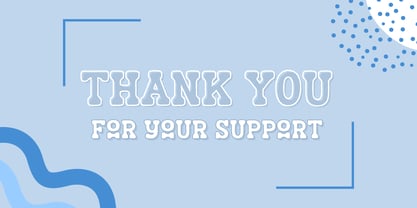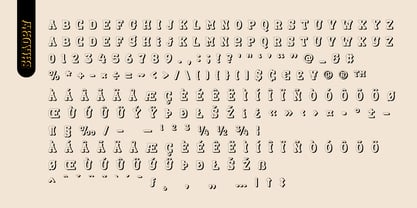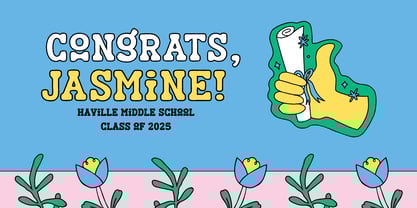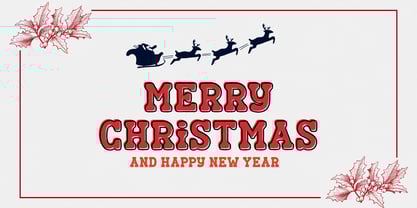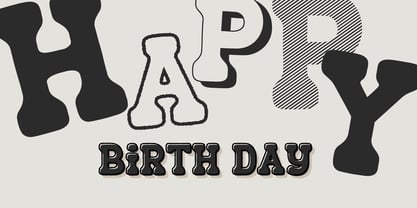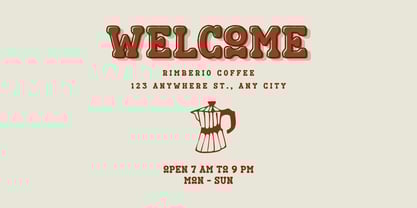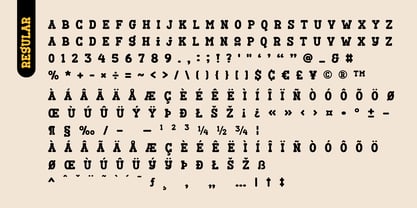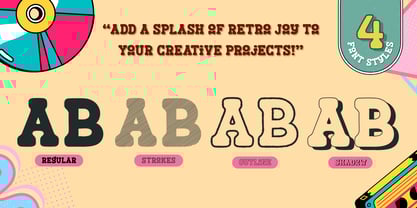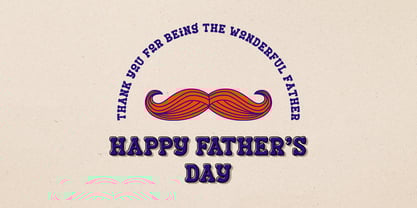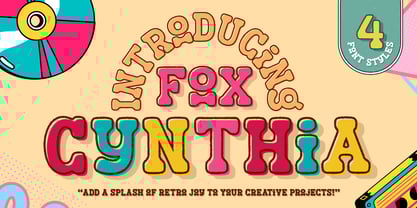
Fox Cynthia
by Fox7
The Fox Cynthia Font Family was designed by Rattana Rattanawan and published by Fox7. Fox Cynthia contains 4 styles and family package options. More about this family
Bring back the groovy vibes with Fox Cynthia, a bold and playful retro font family designed to add a splash of joy to your creative projects! With its quirky curves, chunky serifs, and fun 70s-inspired style, this font is perfect for eye-catching headlines, vibrant posters, branding, packaging, and all things that need a dose of nostalgic charm. Fox Cynthia comes with 4 unique styles – Regular, Strokes, and Outline, Shadow,– giving you endless possibilities to mix and match for dynamic typography. Whether you want a bold statement, a textured retro effect, or a layered vintage look, Fox Cynthia has you covered. ✨ Perfect for: ⋆ Retro posters & flyers ⋆ Fun branding & packaging ⋆ Creative social media graphics ⋆ T-shirt designs & merchandise ⋆ Greeting cards & playful quotes Add Fox Cynthia to your font collection and let your designs shine with funky retro energy!
Designers: Rattana Rattanawan
Foundry: Fox7